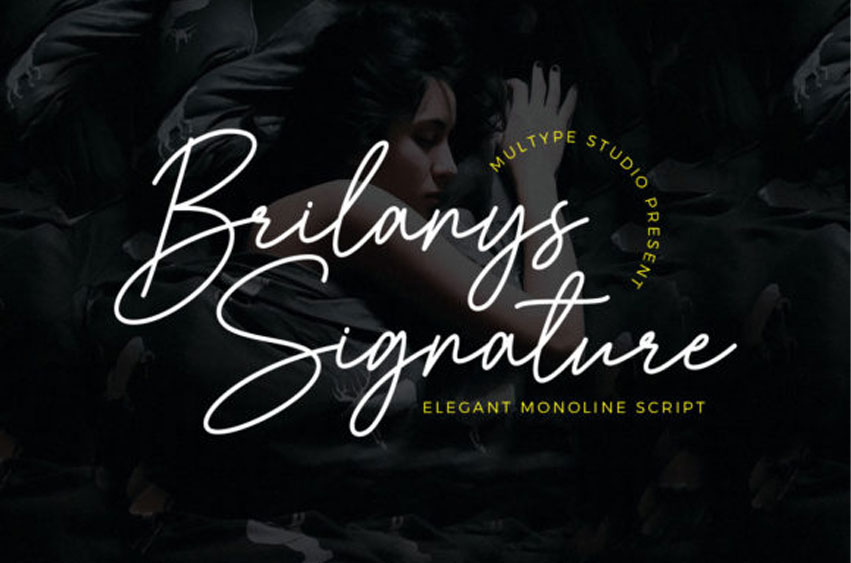
Brilanys Font is a relaxed, casual, and adaptable script font.
Whatever the topic, this font will be a wonderful asset to your font library, as it has the potential to enhance any creation.